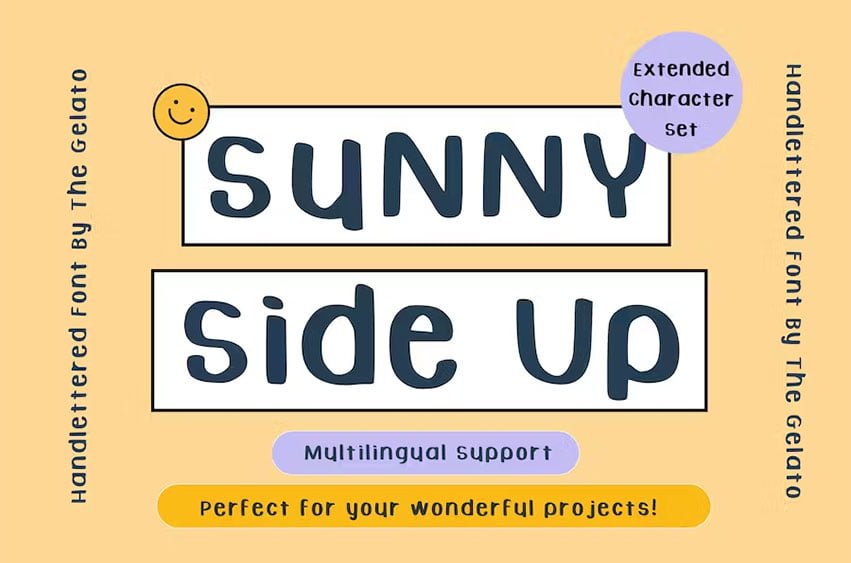
Sunny Side Up Font
Sunny Side Up Font handlettered Marker Font  (Extended Version) is a neat and cute handwriting-style font that can be used as Student GoodNotes and Notability Font, Multilingual Font, Simple Western Font, iPad Bullet Journal Font, Marker Font, Minimal Font
Perfectly suitable for numerous uses such as digital note-taking, digital planners, quotations, banners, logos, product packaging, titles, headers, menu lists, etc.